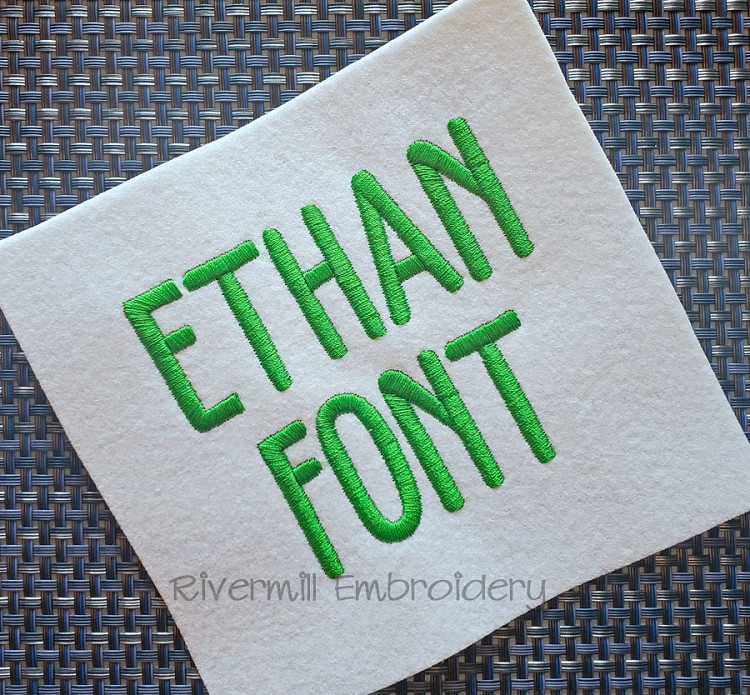
Ethan Font Machine Embroidery Font Alphabet
This set comes upper case letters and numbers 0-9 in 3 sizes:
1" - Satin Stitch Alphabet
1 1/2" - Satin Stitch Alphabet
2" - Satin Stitch Alphabet